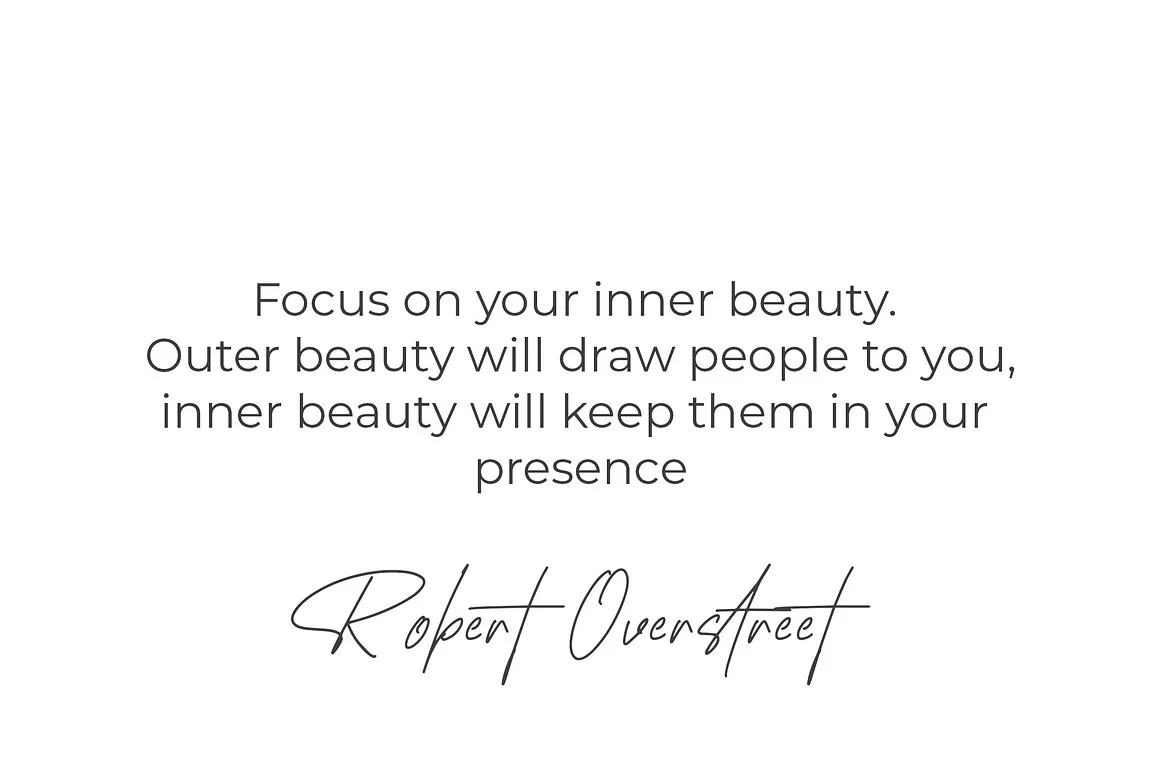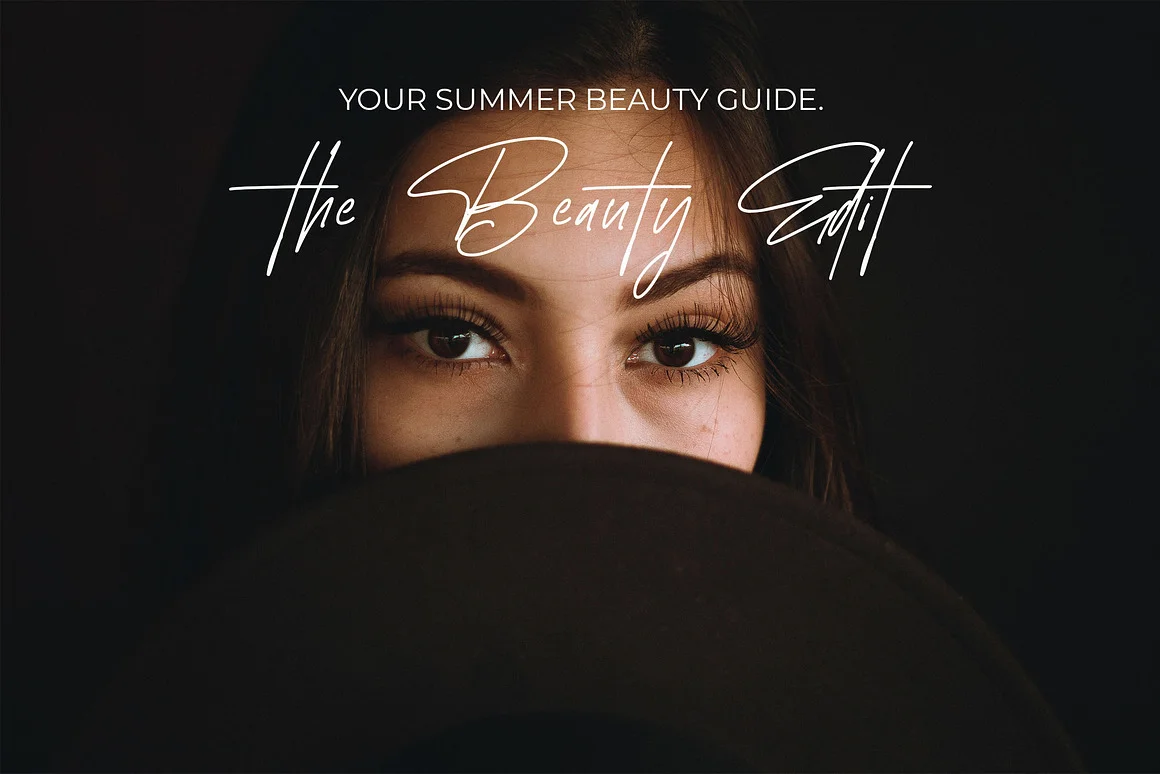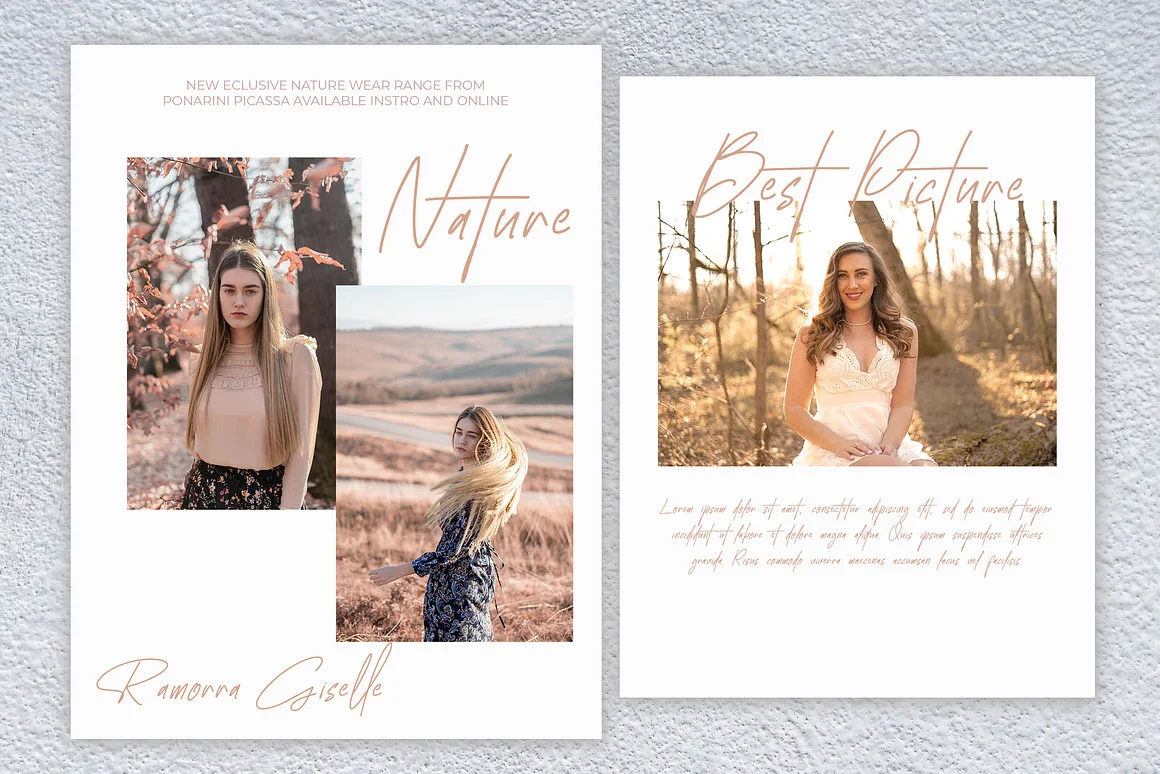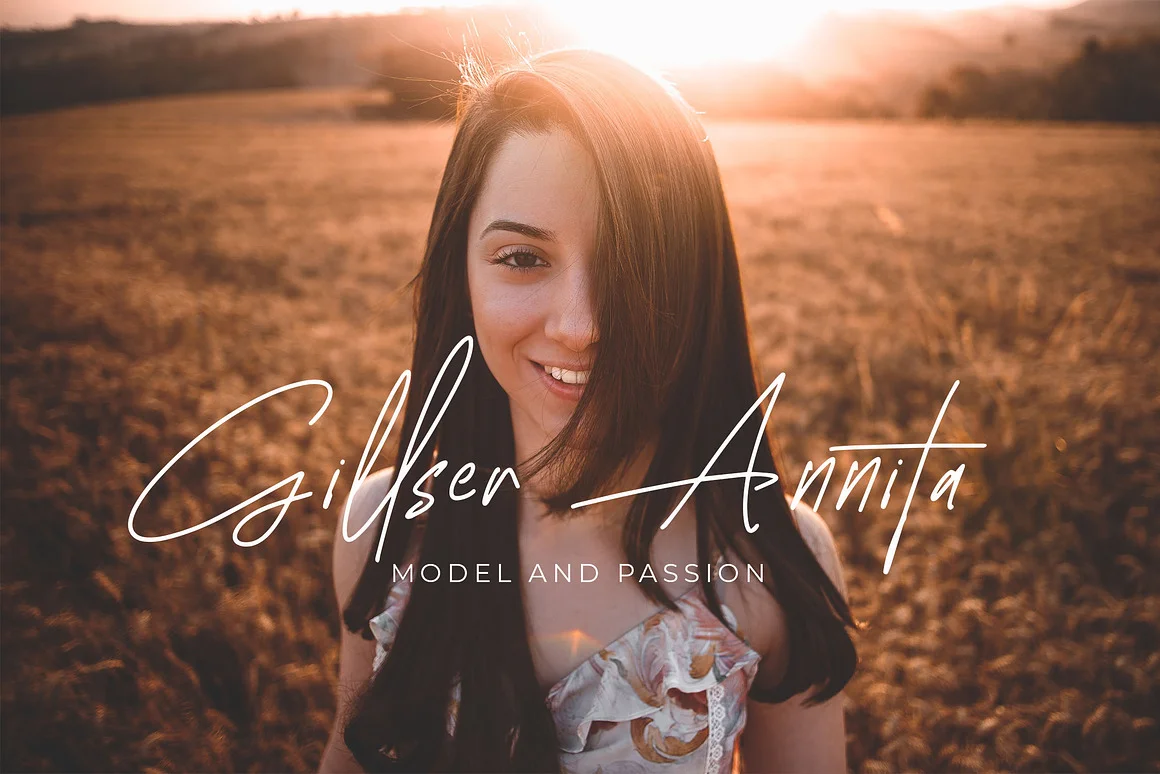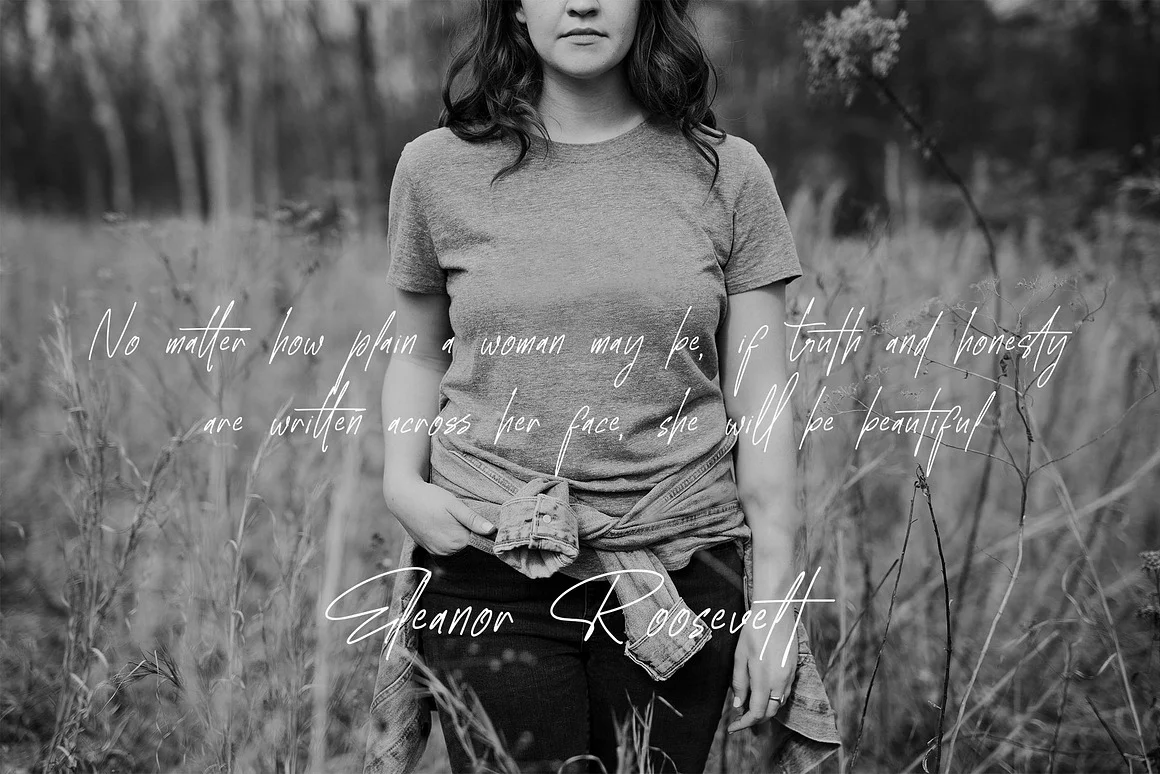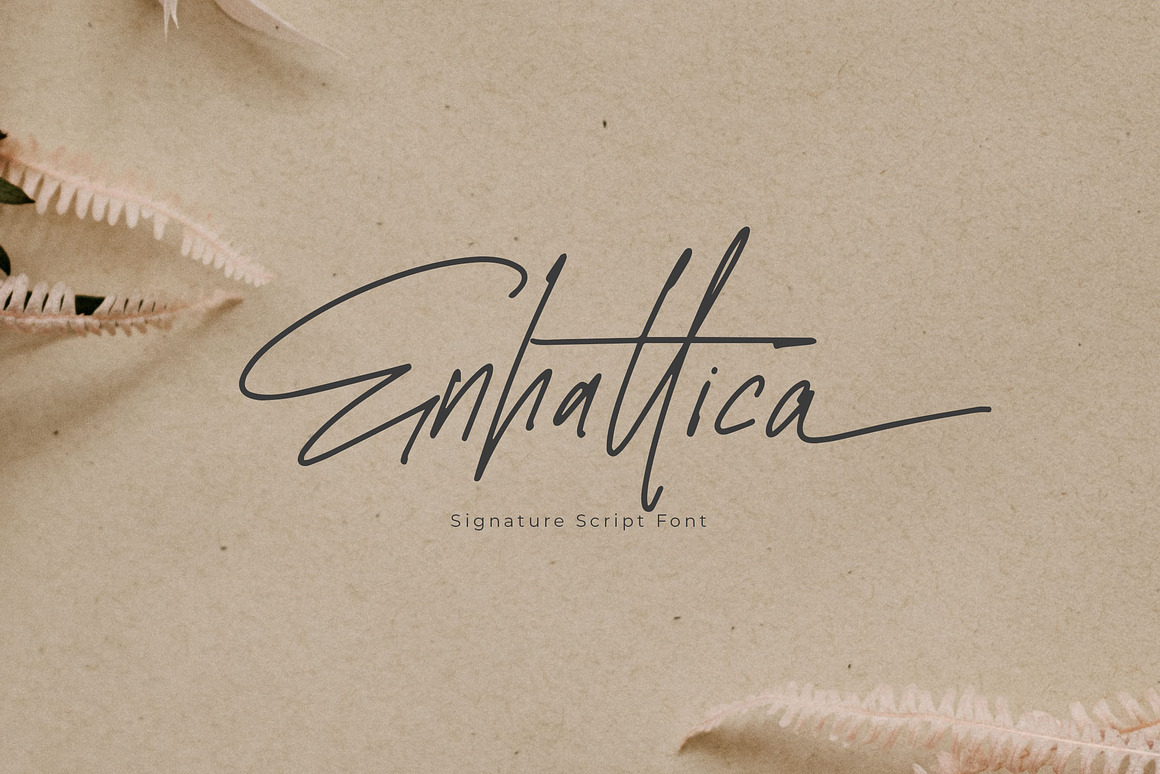
Enhattica Signature Script Font
The Enhattica Signature Script Font excels in enchanting design applications including magical brand identities, mystical business logos, ethereal wedding invitations, fantasy product packaging, enchanted business cards, artistic portfolios, spellbinding greeting cards, mystical social media graphics, magical event signage, and captivating marketing materials. Its enchanting script style makes it perfect for projects requiring mystical elegance that communicates wonder and establishes magical brand positioning with audiences seeking extraordinary experiences and enchanting sophistication.
What makes the Enhattica Signature Script Font genuinely exciting is its exceptional ability to capture ethereal beauty and mystical charm through magically crafted letterforms. The font features flowing, enchanting strokes with mystical flourishes and magical proportions that create a distinctly spellbinding appearance. Each character displays remarkable attention to enchanting detail with ethereal curves, magical connections, and mystical spacing that give text a bewitching, hand-lettered quality. The font's enchanting character and mystical rhythm create an atmosphere of wonder while maintaining elegant sophistication and captivating appeal.
The Enhattica Signature Script Font family typically includes regular weight with comprehensive character sets, featuring uppercase and lowercase letters, numerals, punctuation, and international glyphs. The typeface often incorporates stylistic alternates, contextual ligatures, and enchanting swashes that enhance its signature mysticism. These additional elements provide designers with creative options to customize text appearance and achieve more natural-looking magical handwriting that reflects the font's enchanting and mystical character.
This captivating signature font distinguishes itself through its remarkable balance of mystical charm and professional elegance. Unlike ordinary fonts that lack magical appeal, Enhattica Signature Script Font embraces the power of enchanting design to inspire wonder and create emotional connections with audiences. The font's mystical character makes it essential for fantasy brands, creative businesses, and magical projects where capturing imagination and creating memorable experiences is fundamental to success in competitive creative markets.
The Enhattica Signature Script Font offers designers an exceptional opportunity to incorporate mystical elegance into their enchanting projects. From fantasy entertainment brands to magical product lines, this font delivers the spellbinding signature aesthetic that resonates with audiences who appreciate wonder and magical experiences. Its enchanting appeal ensures your designs communicate mystical sophistication while the signature styling adds distinctive personality that reflects magical excellence and ethereal beauty in any application requiring enchanting typography solutions.